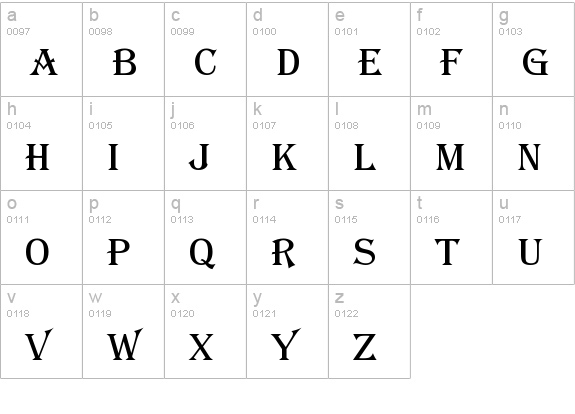
AlgerianBasDEE Font Details
AlgerianBasDEE font is a stunning and elegant typeface that exudes a sense of sophistication and style. With its unique blend of classic and modern elements, this font is perfect for adding a touch of luxury to any design project. The intricate details and decorative flourishes of AlgerianBasDEE make it a standout choice for headlines, logos, and invitations. Best of all, AlgerianBasDEE font is available for free download at FontsMarket.com. Whether you're a designer looking to elevate your work or a hobbyist in need of a beautiful typeface, AlgerianBasDEE is sure to impress with its timeless appeal. Don't miss out on this opportunity to enhance your projects with this exquisite font, now easily accessible at FontsMarket.com.